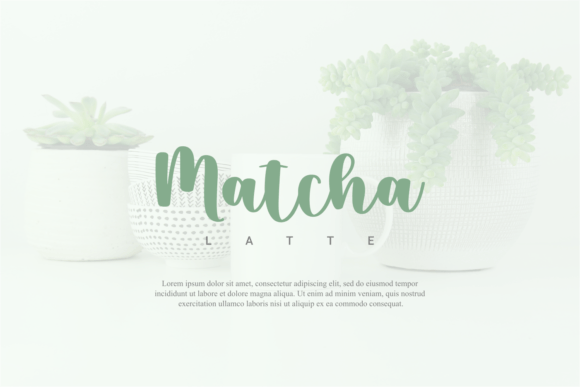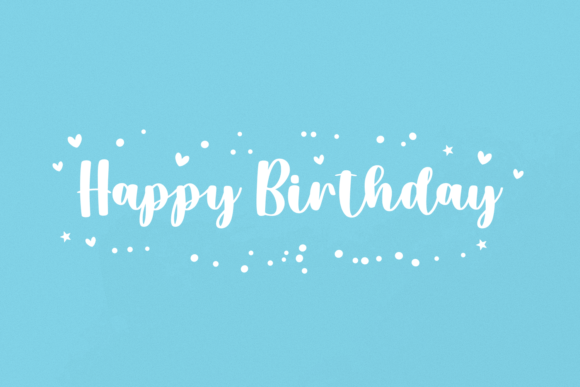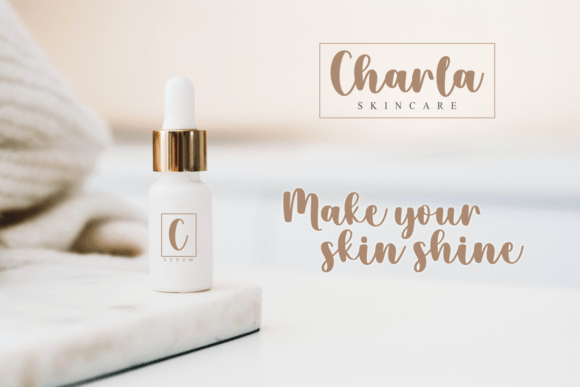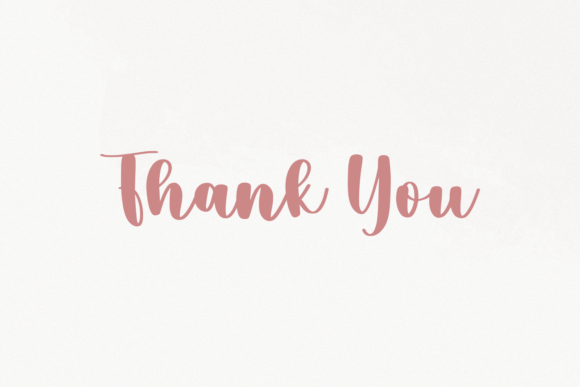
Introduction to Airbalone Font
Airbalone is a sweet handwritten font.
Add it to your logos, labels, branding, invitations, websites, quotes, and more, and it will boost your designs and make them a true standout .
Key Features of Airbalone Font
Why Choose Airbalone Font?
Airbalone Font offers exceptional quality and versatility, making it a valuable addition to your design toolkit. Whether you’re creating for personal projects or commercial use, Airbalone Font delivers professional results.